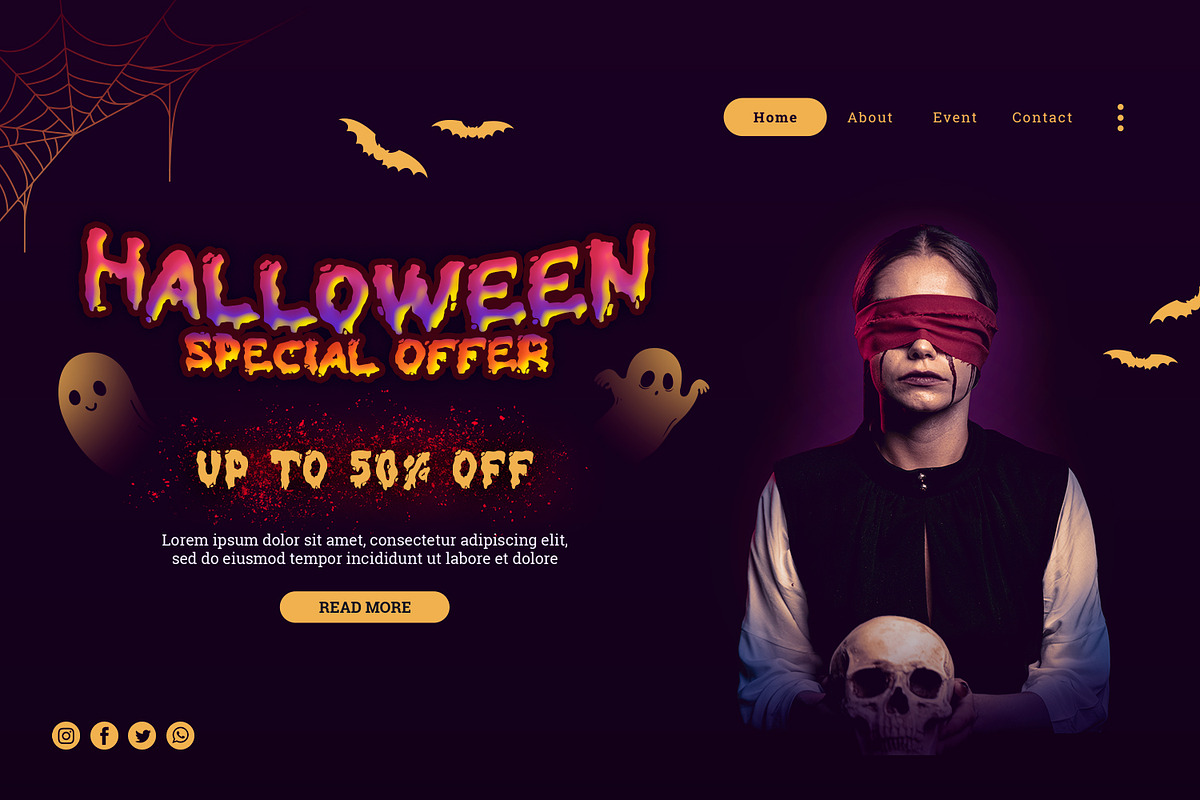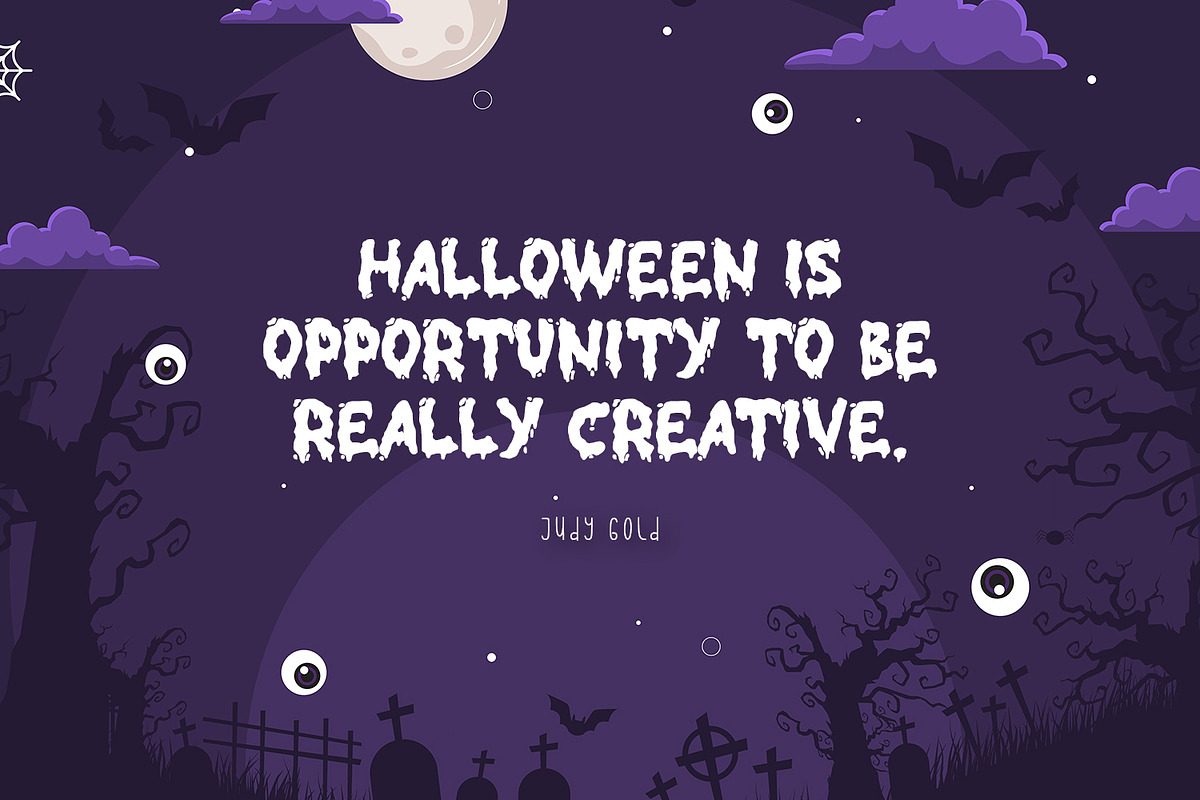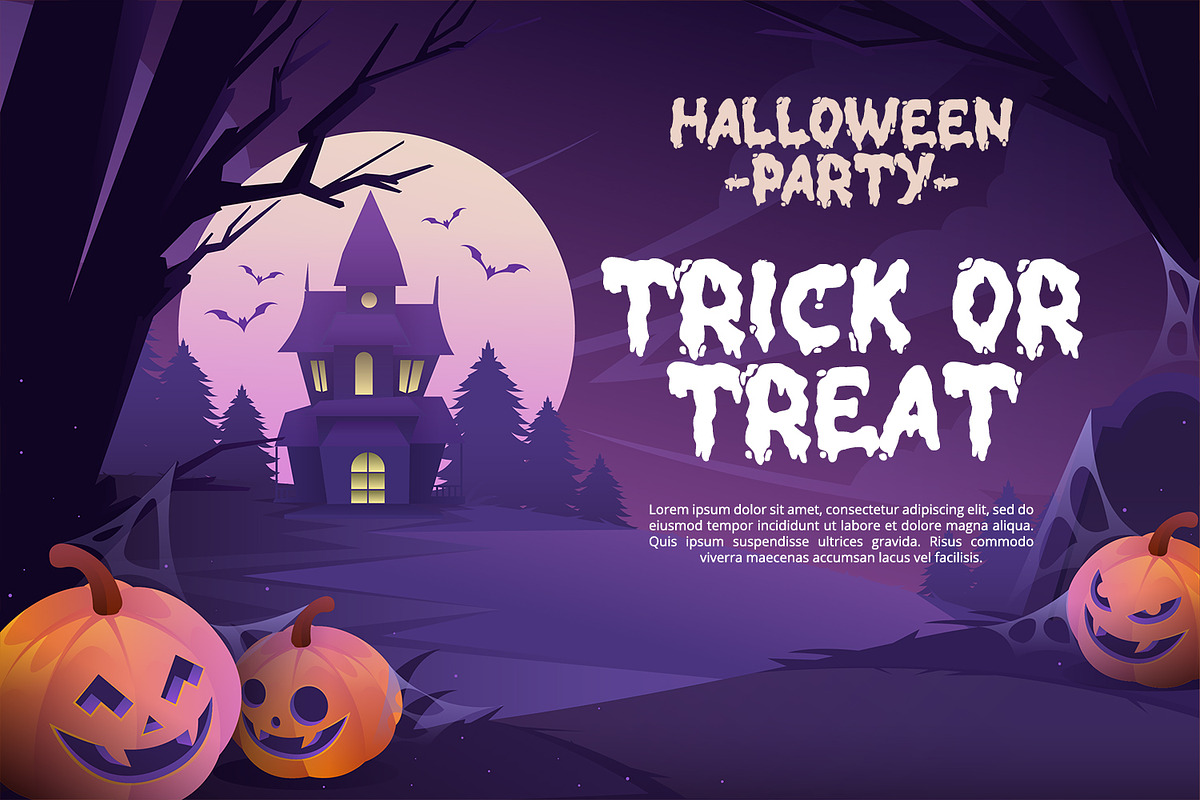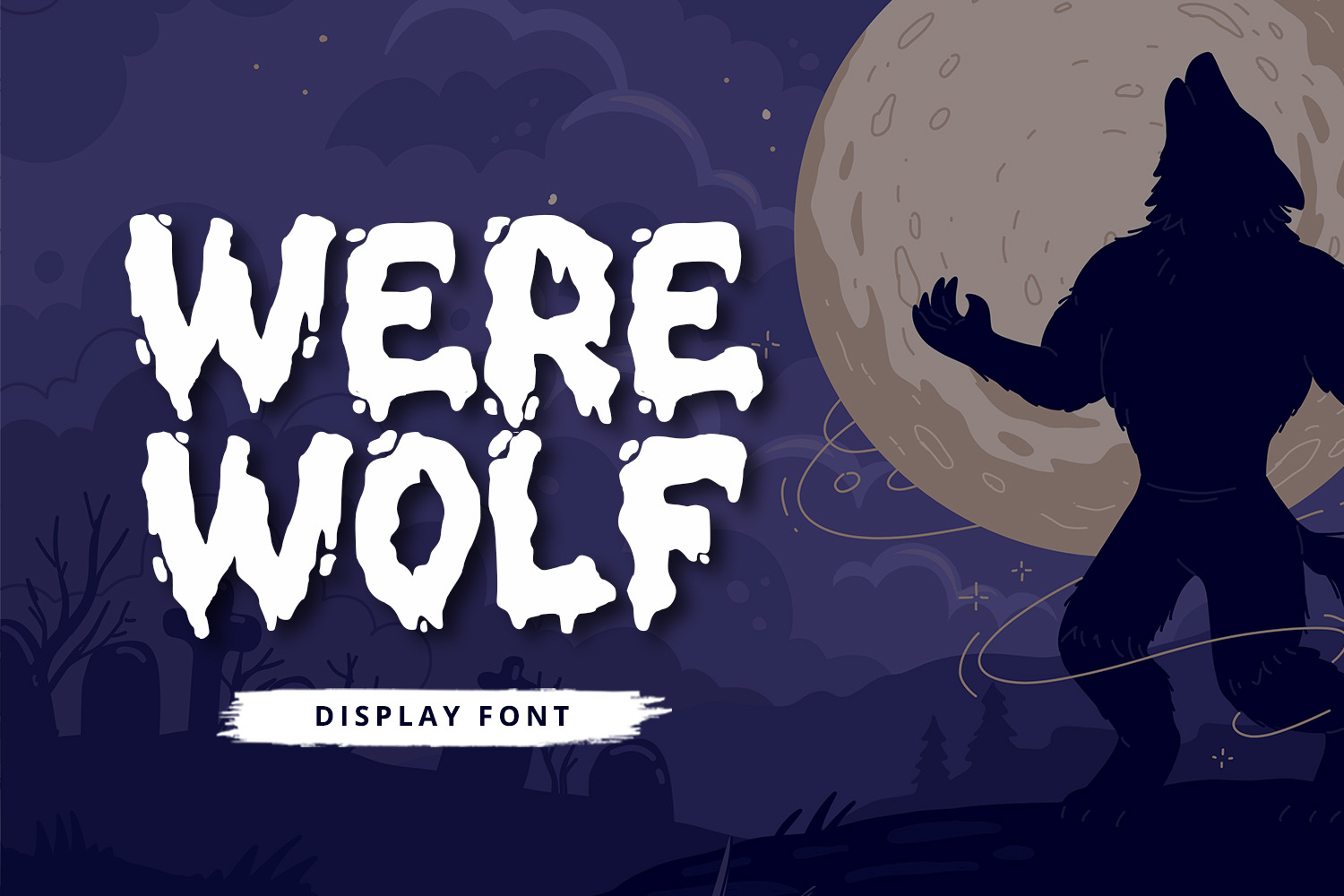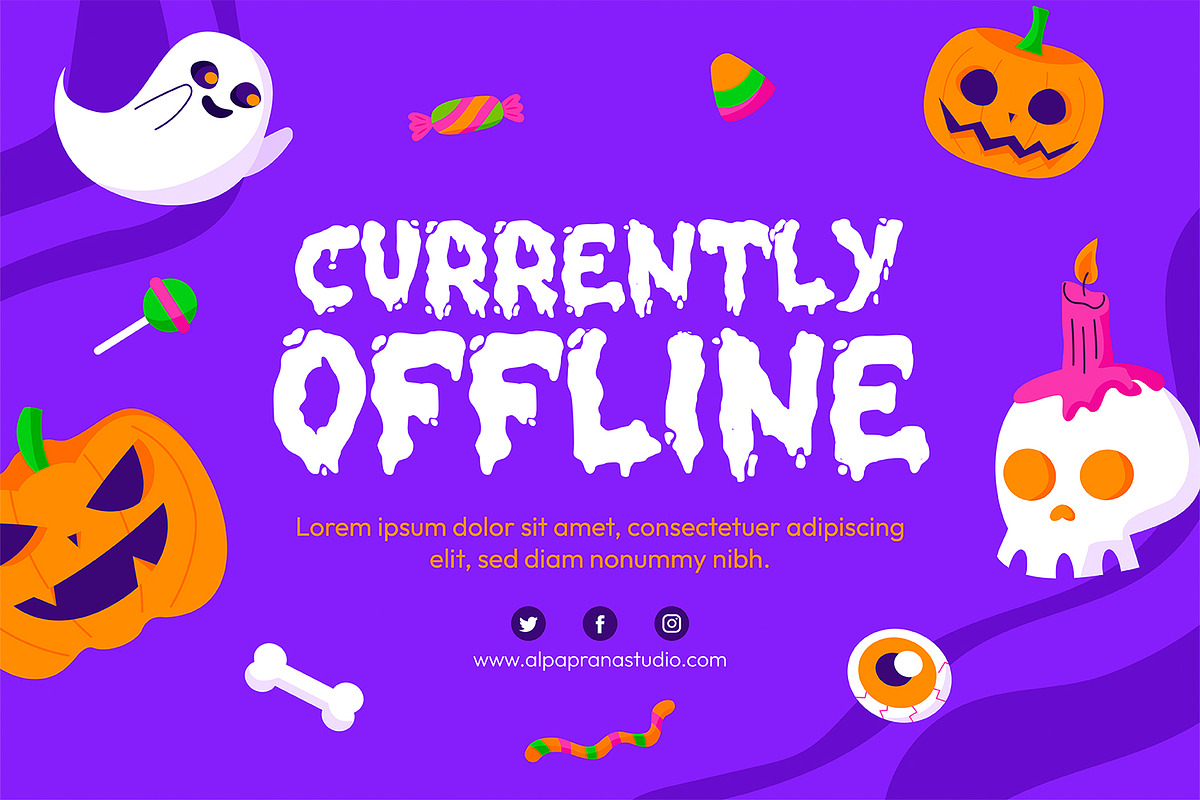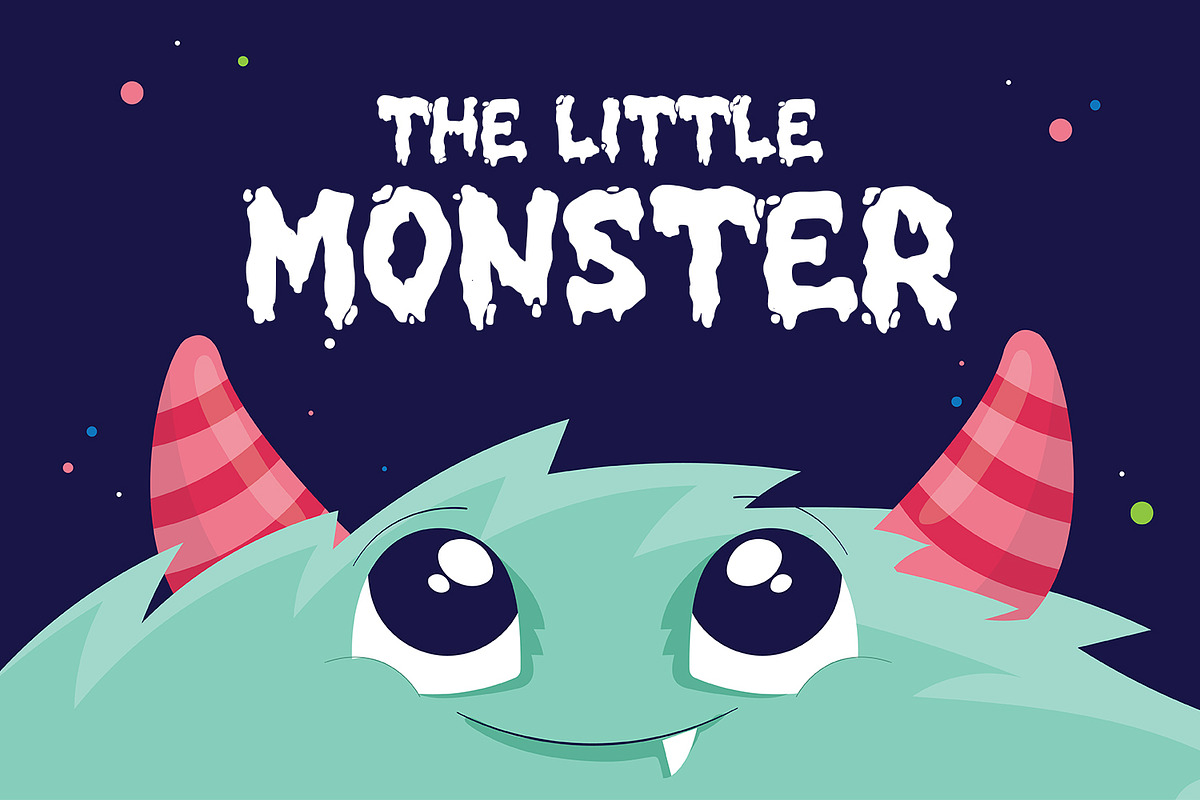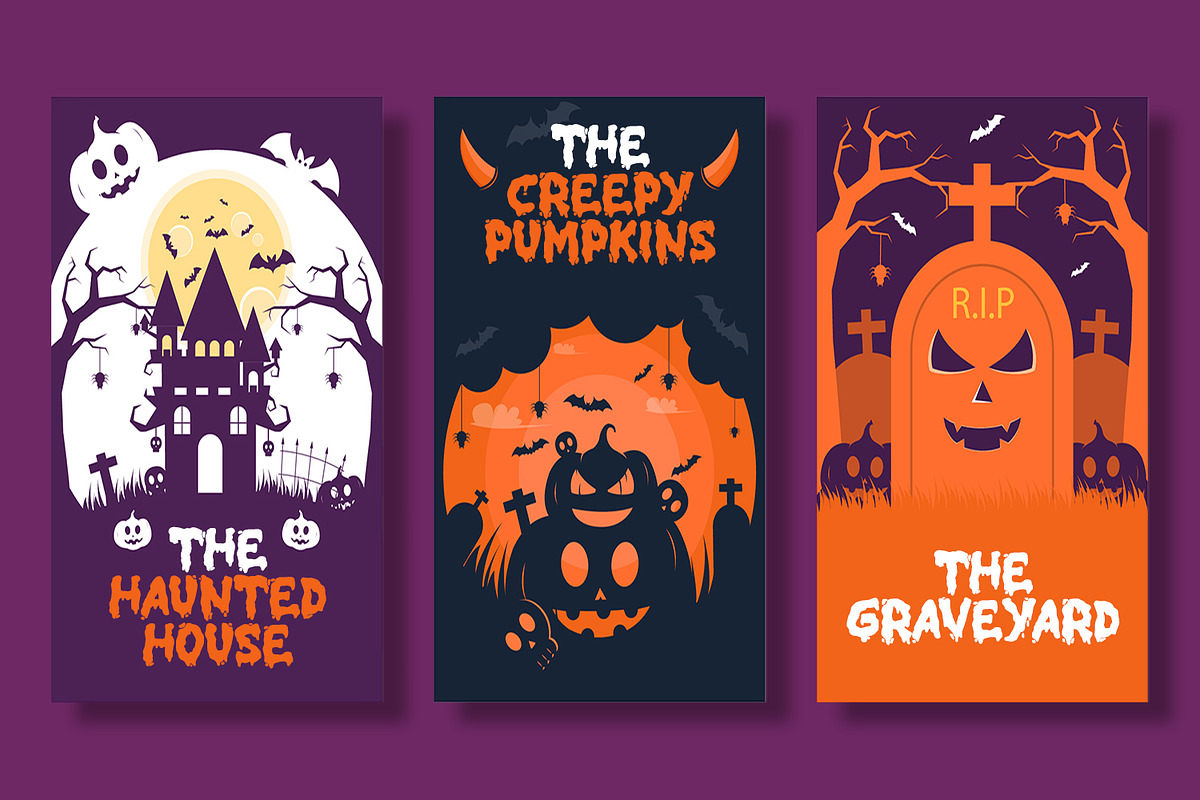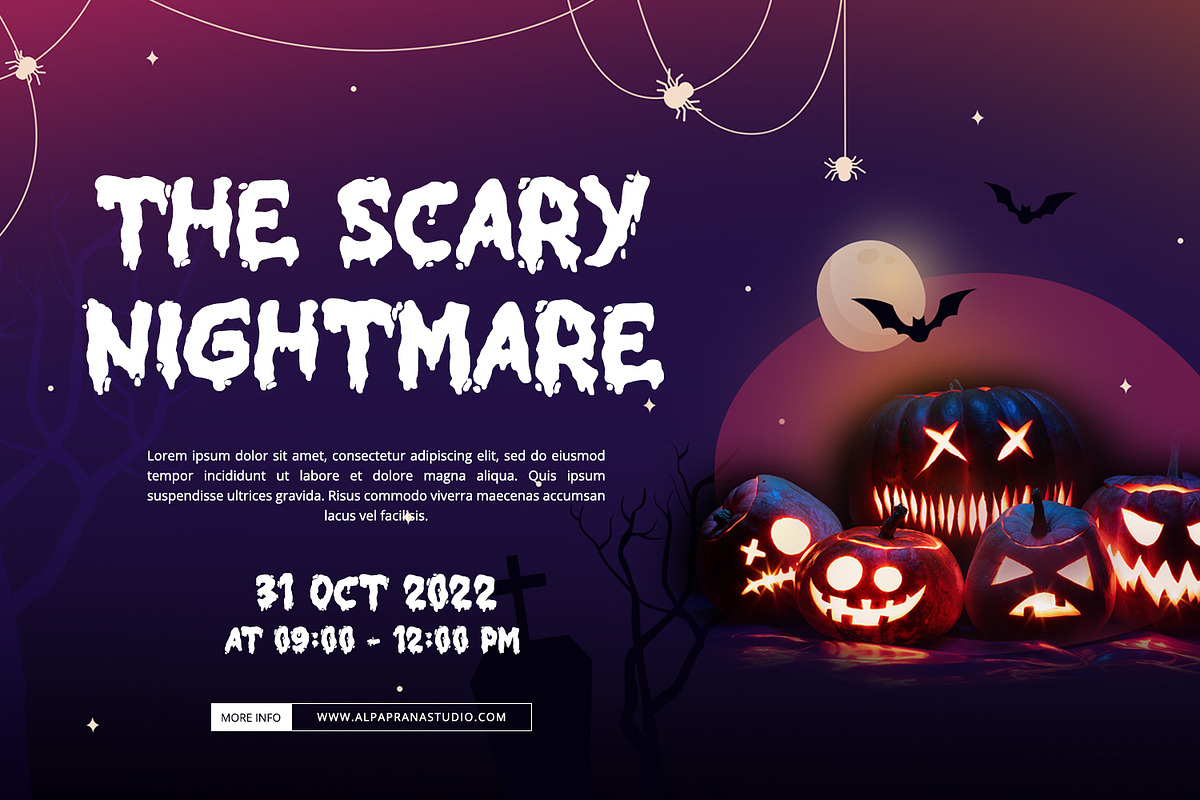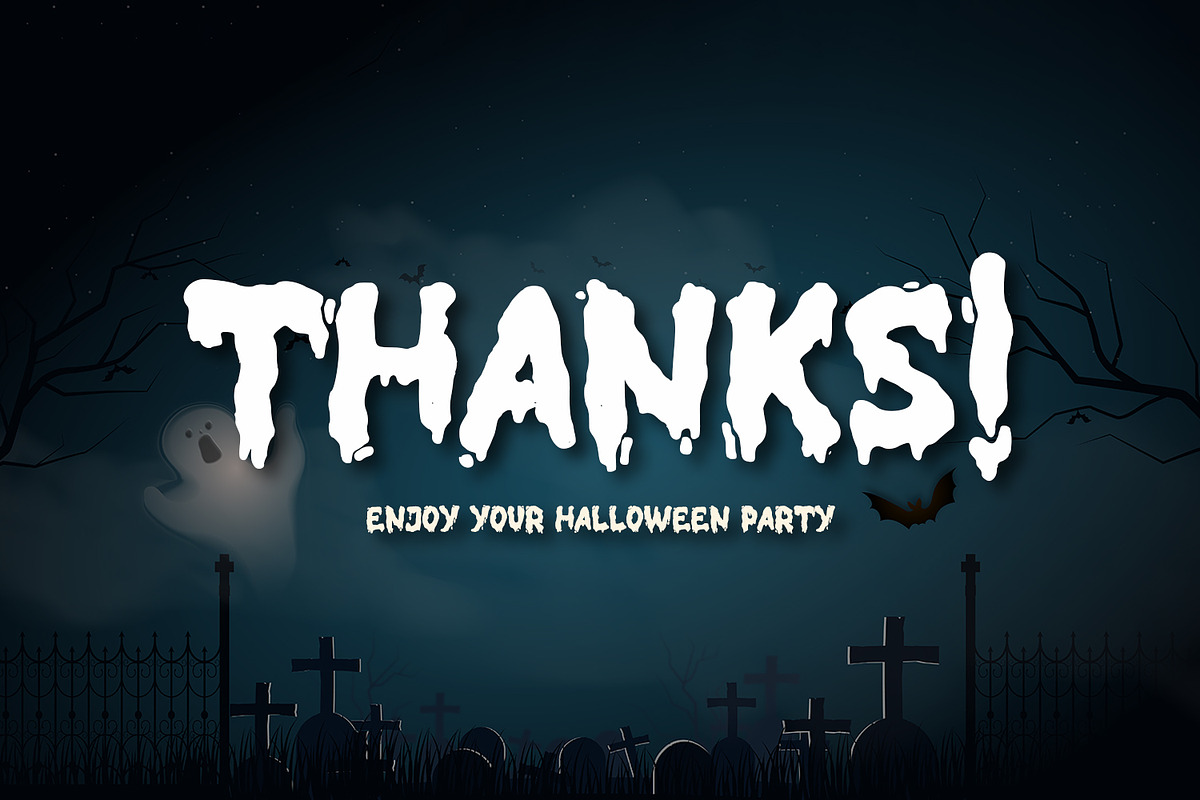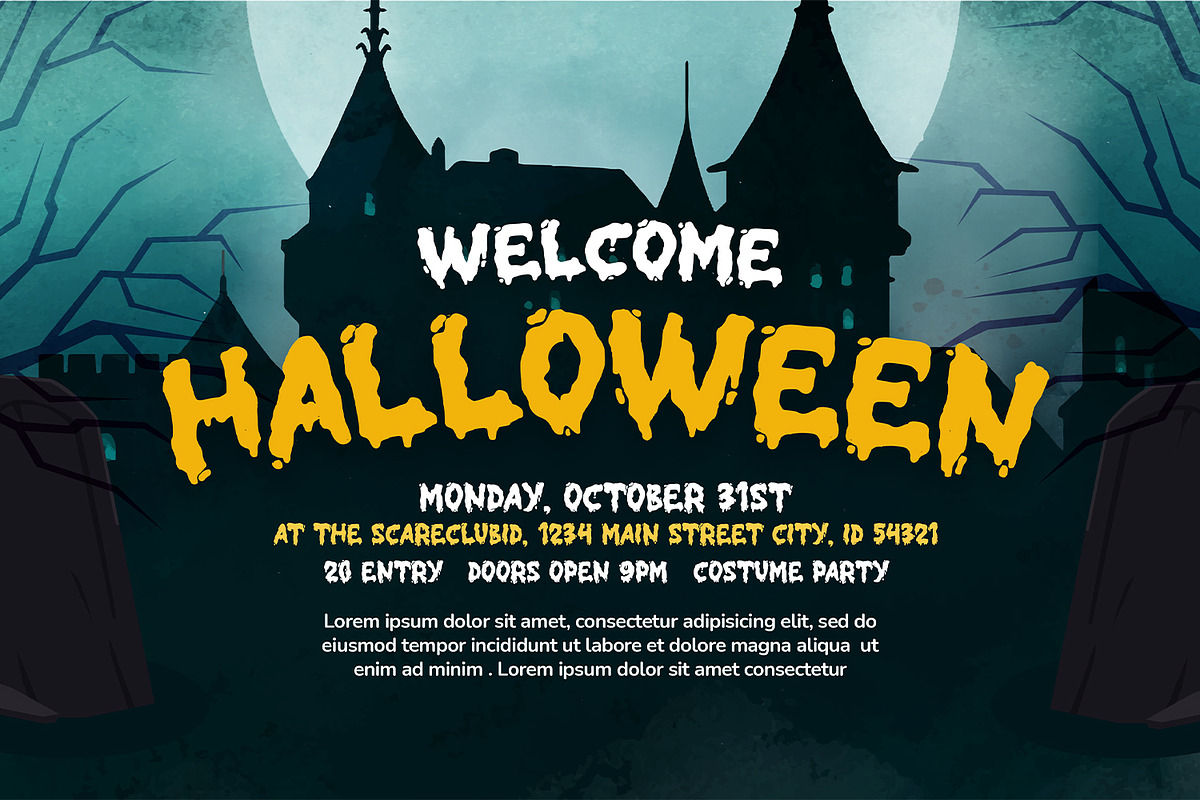
Werewolf - Display Font
Werewolf is a stunning horror display font with cute and playful feels. It will be perfectly used for Branding, Logo Design, Lettering, Logotype, Clothing, Poster, magazine, packaging, posters, shopping bags, t-shirts, book covers, photography, special events and other design project.